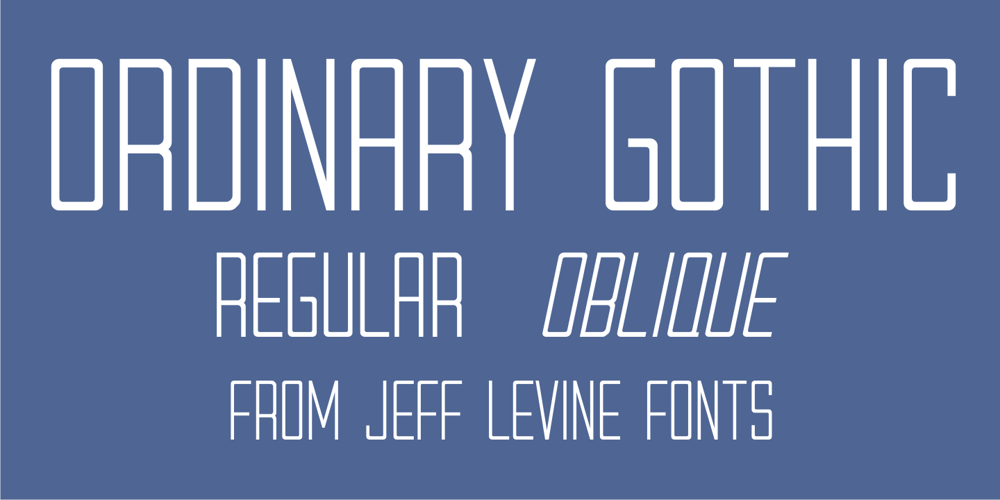
Ordinary Gothic JNL Font Family was designed by Jeff Levine and published by Jeff Levine. Ordinary Gothic JNL contains 2 styles and family package options. Ordinary Gothic JNL is a simple, thin “stovepipe” style of hand lettering found on the cover of a piece of sheet music for 1937’s “You Can’t Stop Me from Dreaming”, and is available in both regular and oblique versions. The song was introduced and featured by Guy Lombardo and His Royal Canadians.